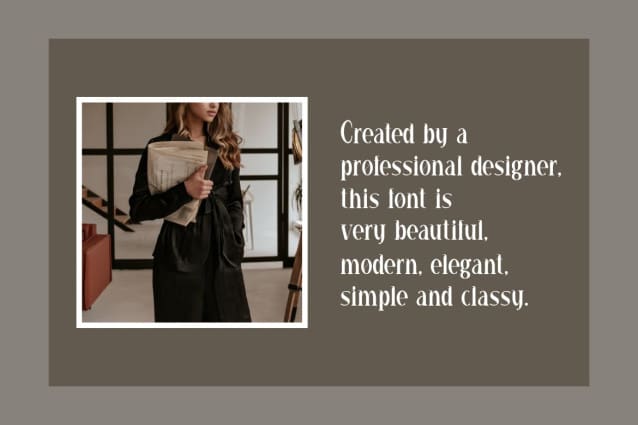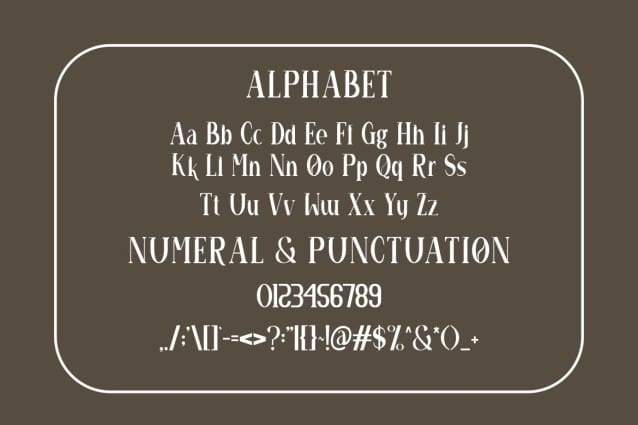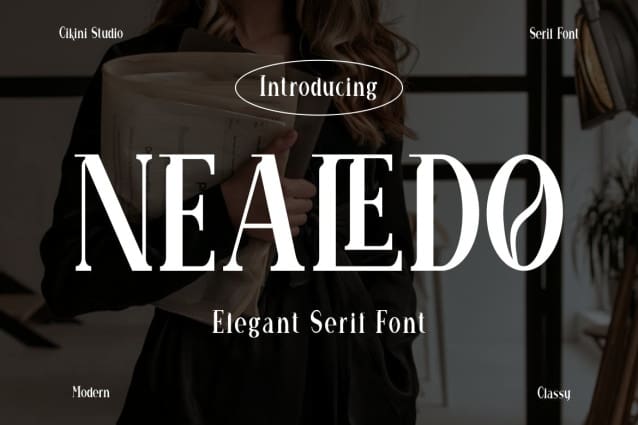
Nealedo Font
Nealedo Font – Elegant Serif Font is a modern and authentic font. Perfect for the needs of professionals and product brands, this font is suitable for all branding projects such as quotes, logos, blog headers, posters, ribbons, letters, invitations, stationery , etc. Designed to be versatile and flexible, it can be used on a variety of projects and media. Extraordinary in a variety of contexts